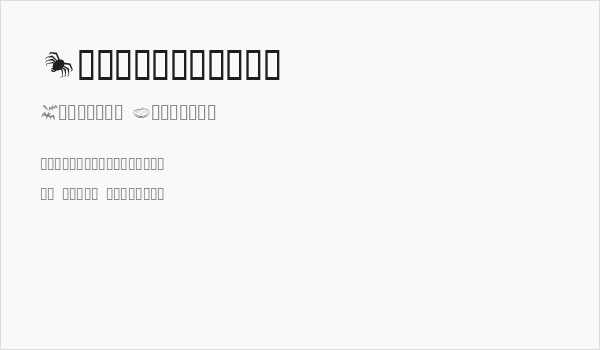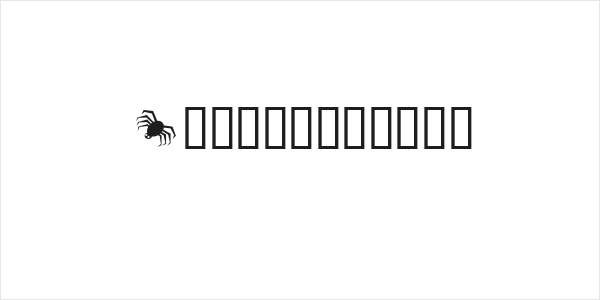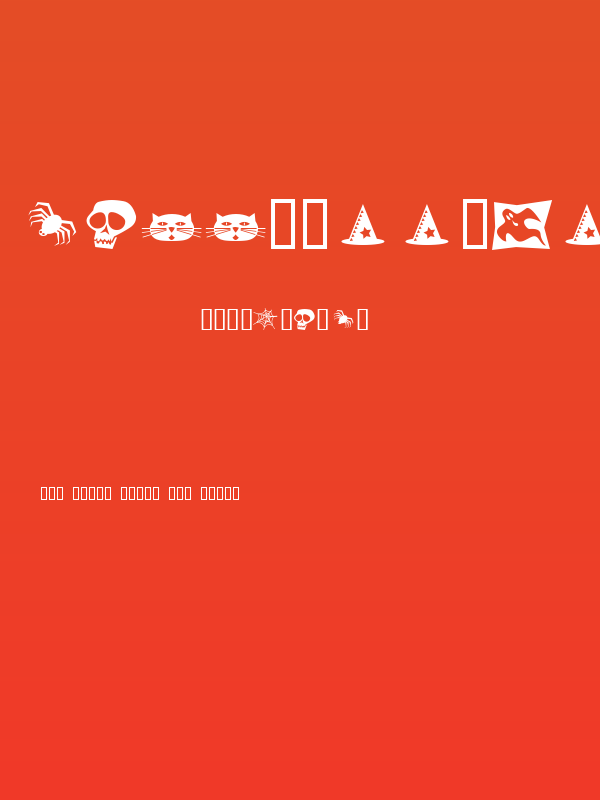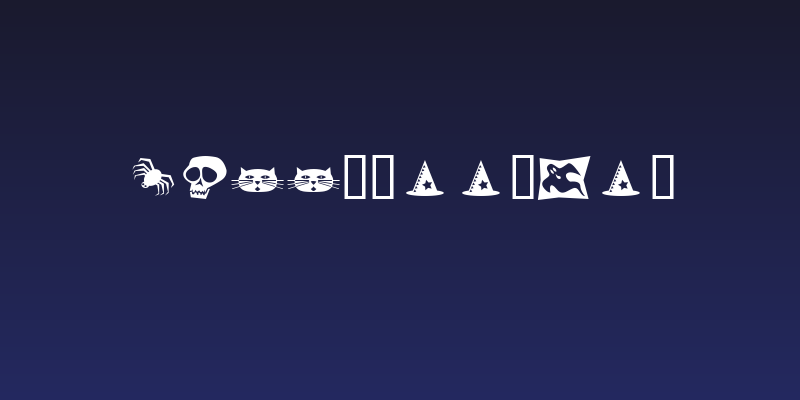
Halloweenies Font
Halloweenies Description
This font is a playful and thematic collection of Halloween-themed icons, each representing a different spooky element. The icons include a skull, haunted house, bats, pumpkin, witch hat, bone, spider web, spider, ghost, tombstone, coffin, and a black cat. Each icon is designed with bold lines and a cartoonish style, making them perfect for adding a fun and eerie touch to Halloween projects. The icons are consistent in style, with a focus on bold, clear shapes that are easily recognizable. This set does not include traditional alphabetic characters or numbers, focusing solely on decorative icons.
| Use Case | Logos, Decorative elements |
| Proposed Projects | Ideal for Halloween party invitations, themed decorations, children's Halloween crafts, and spooky social media graphics. |